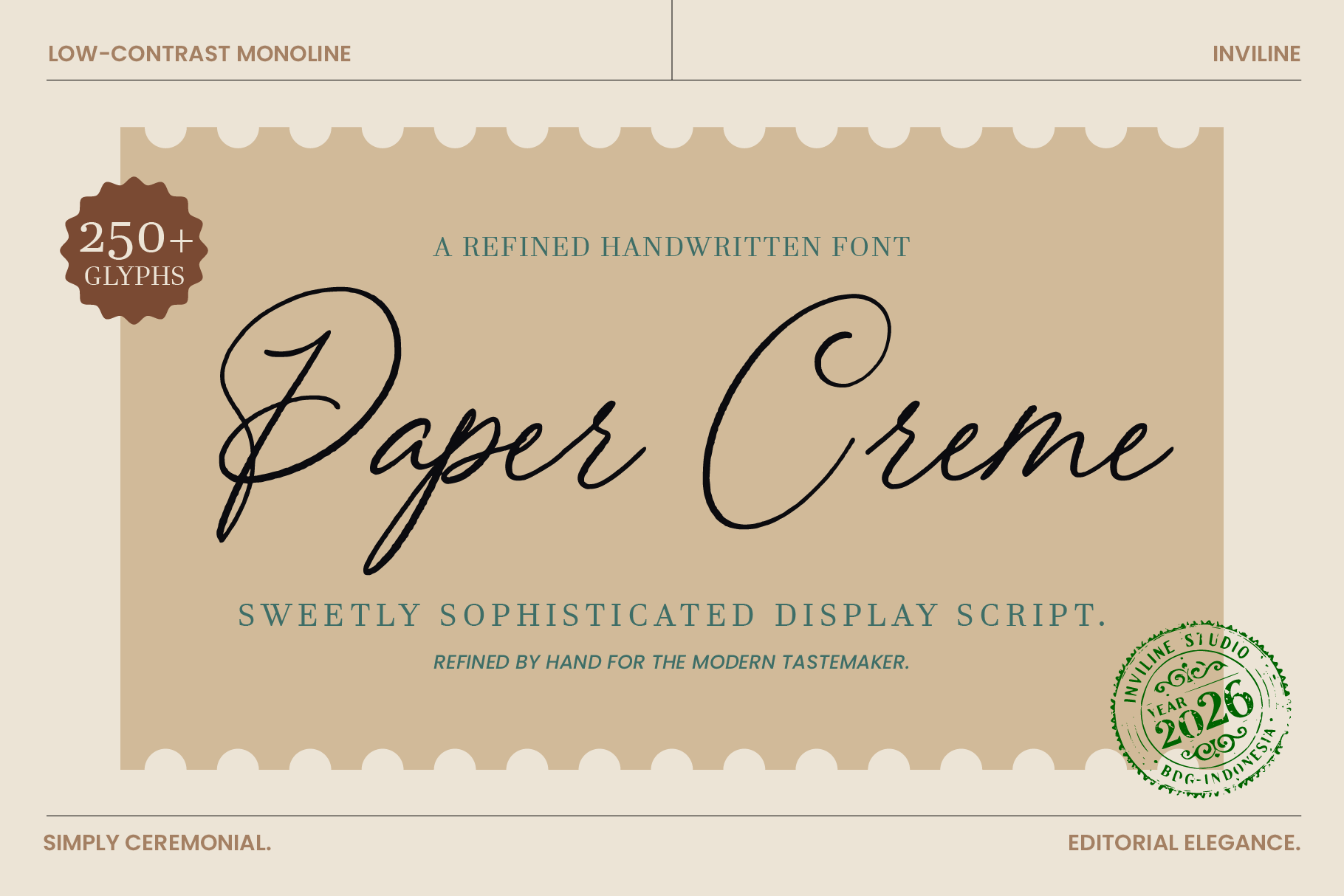
Paper Creme - Display Script Font
Paper Creme — Refined Handwritten Script Font
Paper Creme is a refined handwritten script font featuring elegant monoline strokes, graceful movement, and a sophisticated personal touch. Inspired by luxury stationery, handwritten correspondence, and timeless editorial aesthetics, it brings a soft yet premium feel to every design.
Perfect for wedding invitations, luxury branding, logos, packaging, editorial layouts, beauty projects, and elegant lifestyle designs.
Refined monoline handwritten style
250+ glyphs included
Uppercase & lowercase characters
Stylistic alternates & ligatures
Elegant flowing letterforms
Perfect for logos, names, titles, and short phrases
Paper Creme Display Script Font
Ideal For
Wedding stationery
Luxury branding
Boutique identities
Signature logos
Fashion & beauty branding
Perfume & cosmetic packaging
Editorial design
Greeting cards
Product labels
Design Tips
Paper Creme works best at medium to large sizes where its delicate strokes and elegant rhythm can shine. Pair it with serif or minimalist sans serif fonts for a modern, sophisticated look.